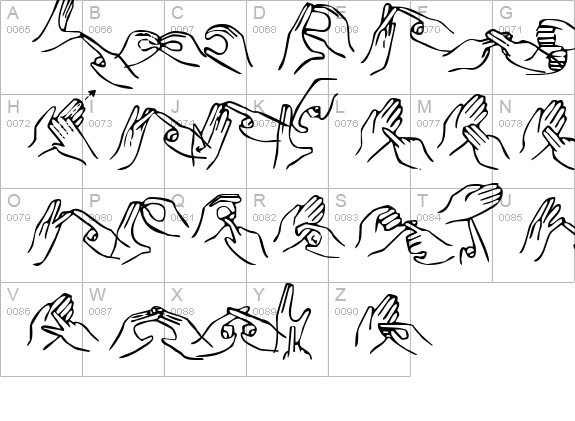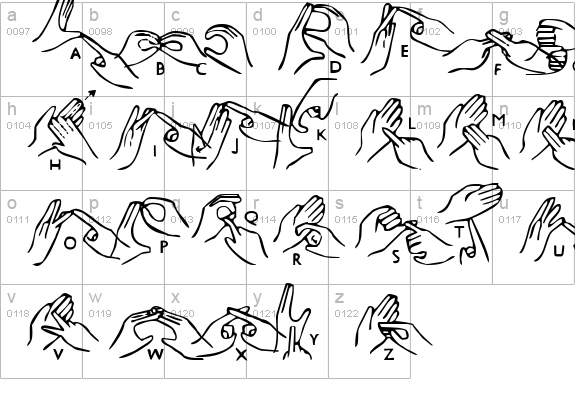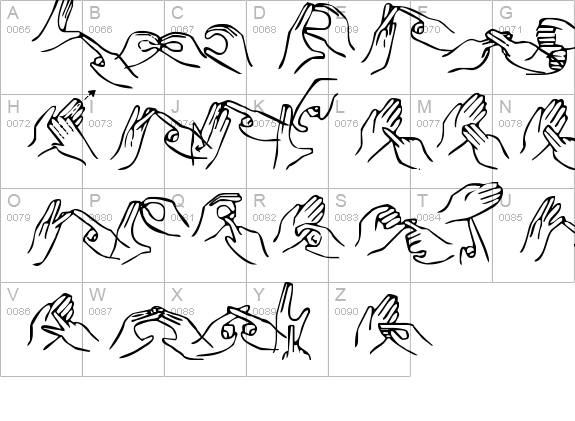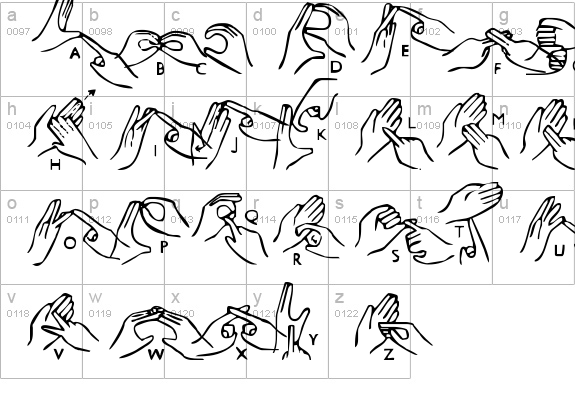
Helping Hands Font Details
Introducing Helping Hands font, a versatile and friendly typeface designed to lend a helping hand to your creative projects. This charming font exudes warmth and approachability, making it perfect for a wide range of designs, from invitations to branding to social media graphics. With its soft curves and playful details, Helping Hands font adds a touch of whimsy and personality to any text. Whether you're looking to convey a sense of friendliness, compassion, or creativity, this font has got you covered. And the best part? Helping Hands font is completely free to download at FontsMarket.com. So go ahead and add this delightful font to your collection today and let it help you create beautiful designs with ease.